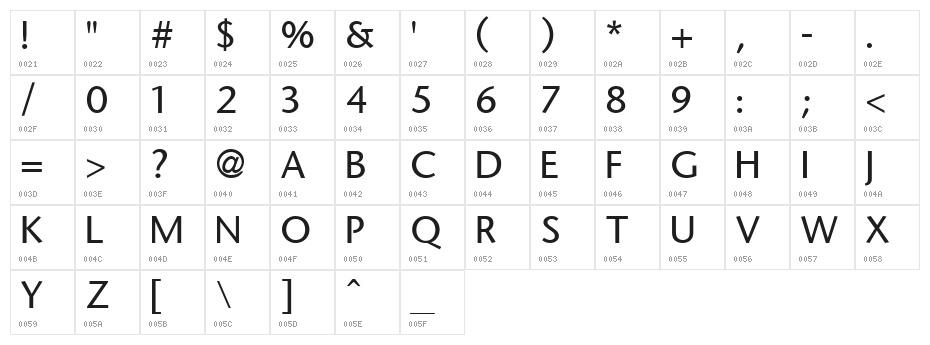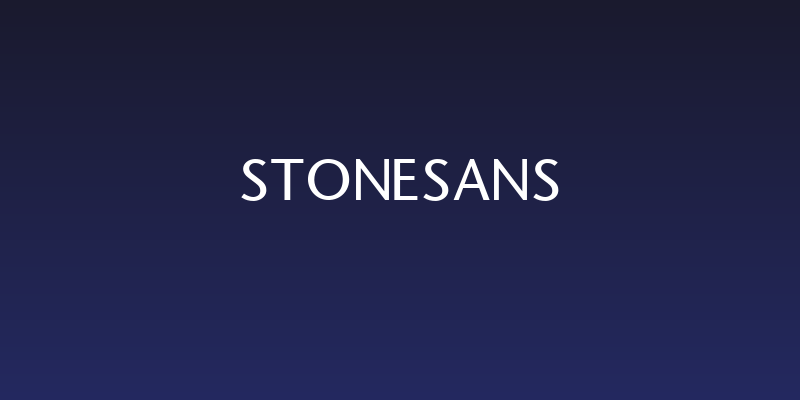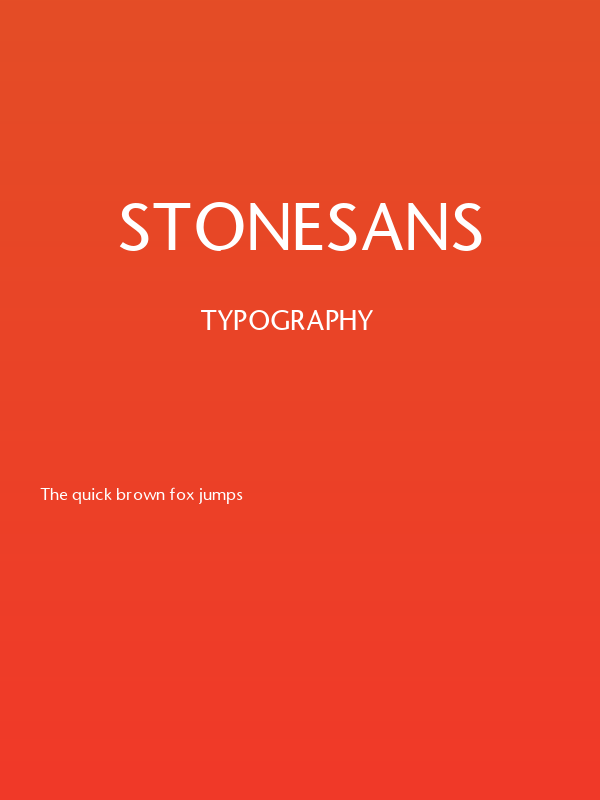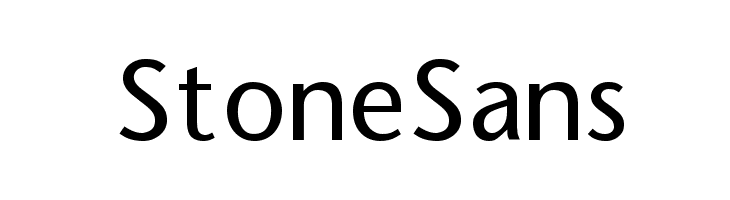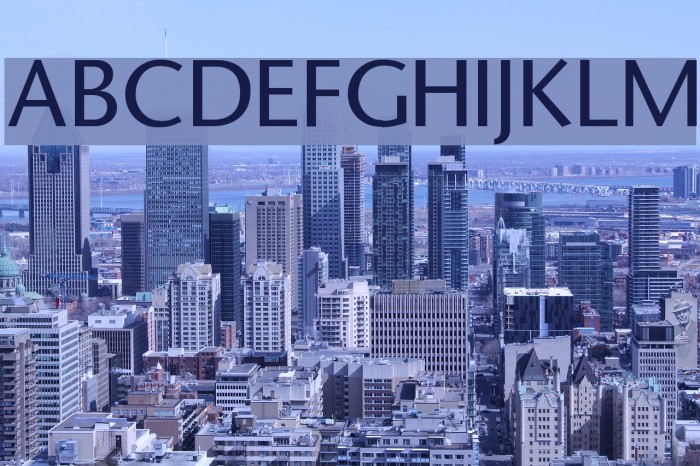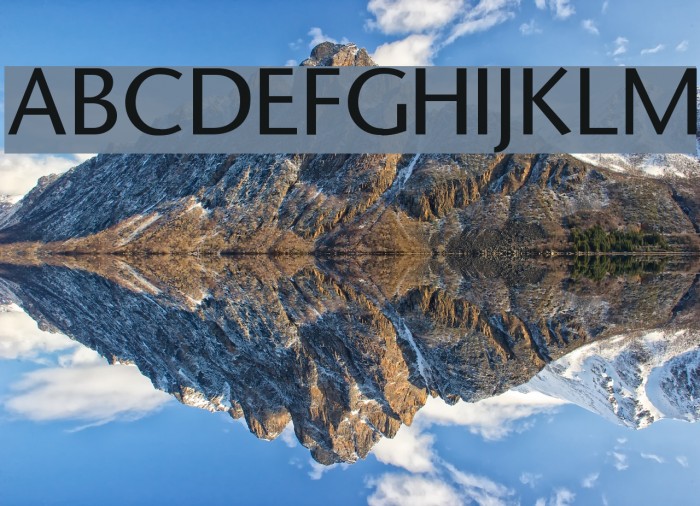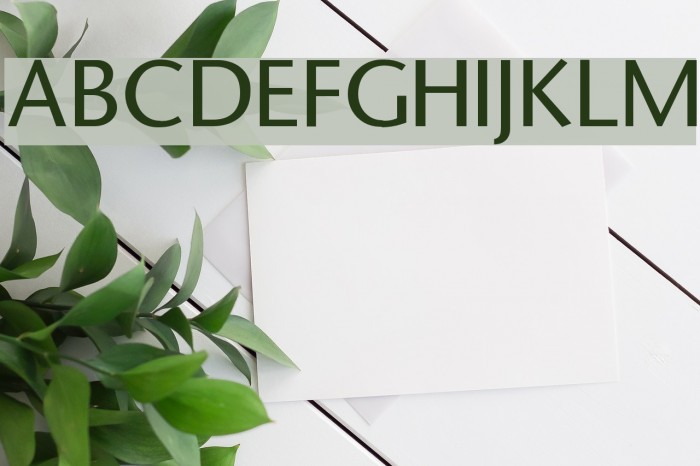
StoneSans Font
StoneSans Description
This font features a clean and modern sans-serif design, characterized by its simplicity and readability. The letters are well-proportioned with smooth curves and straight lines, providing a balanced and harmonious appearance. The uppercase letters are bold and commanding, while the lowercase letters maintain a consistent flow, making it versatile for various applications. The numerals are clear and distinct, ensuring easy readability. Special characters are designed with the same attention to detail, enhancing the font's overall utility.
| Use Case | Headlines, Body text, Logos |
| Proposed Projects | Ideal for corporate branding, web design, advertising, and editorial content. |